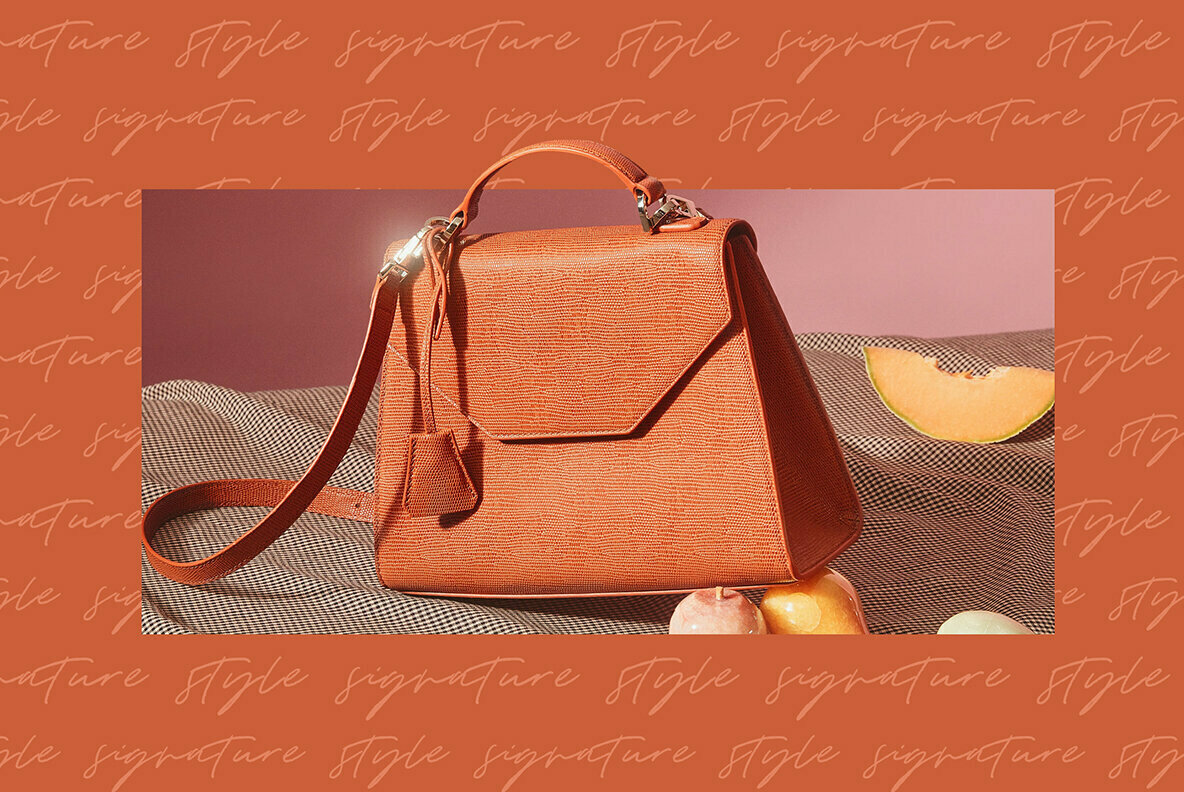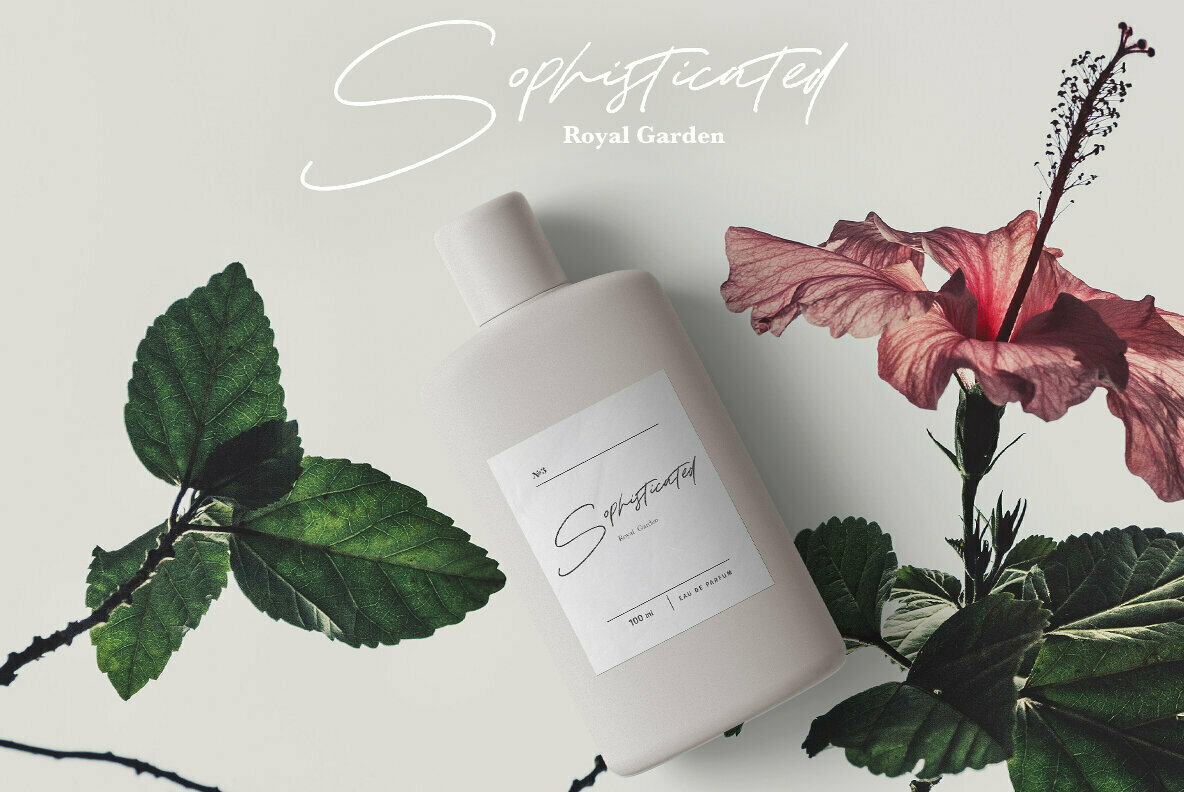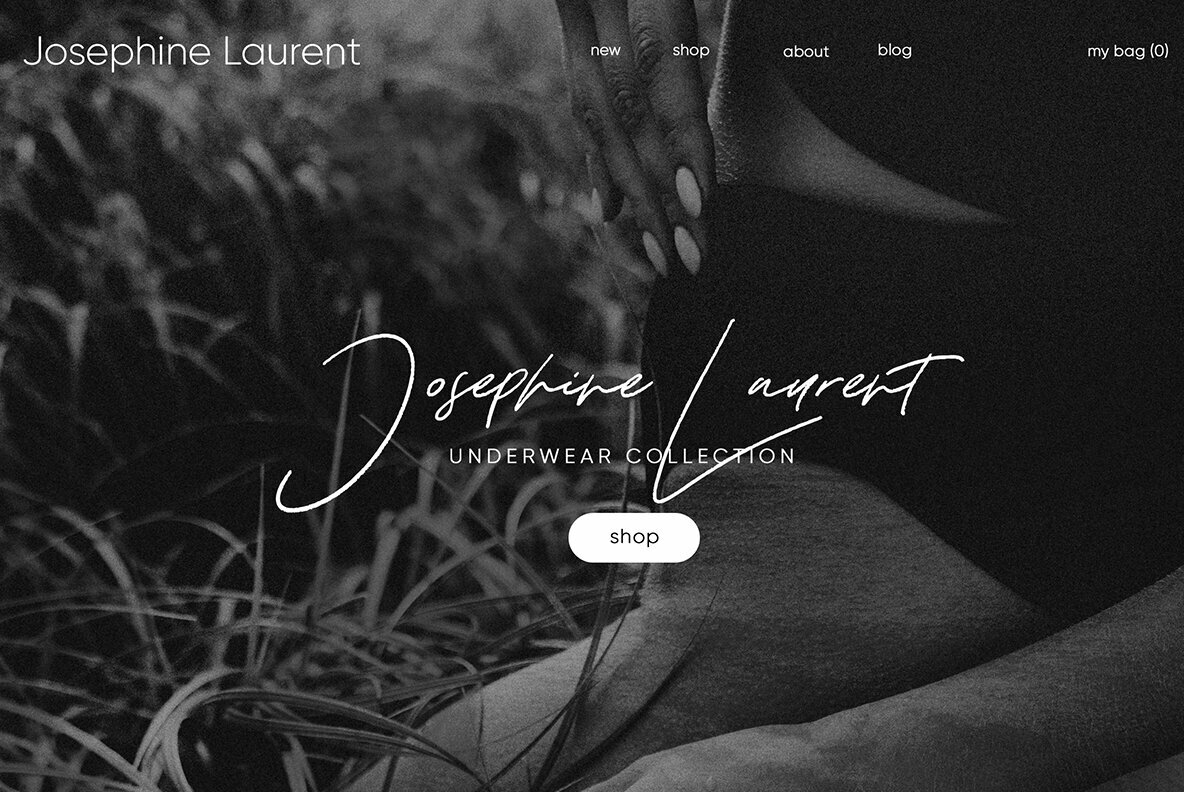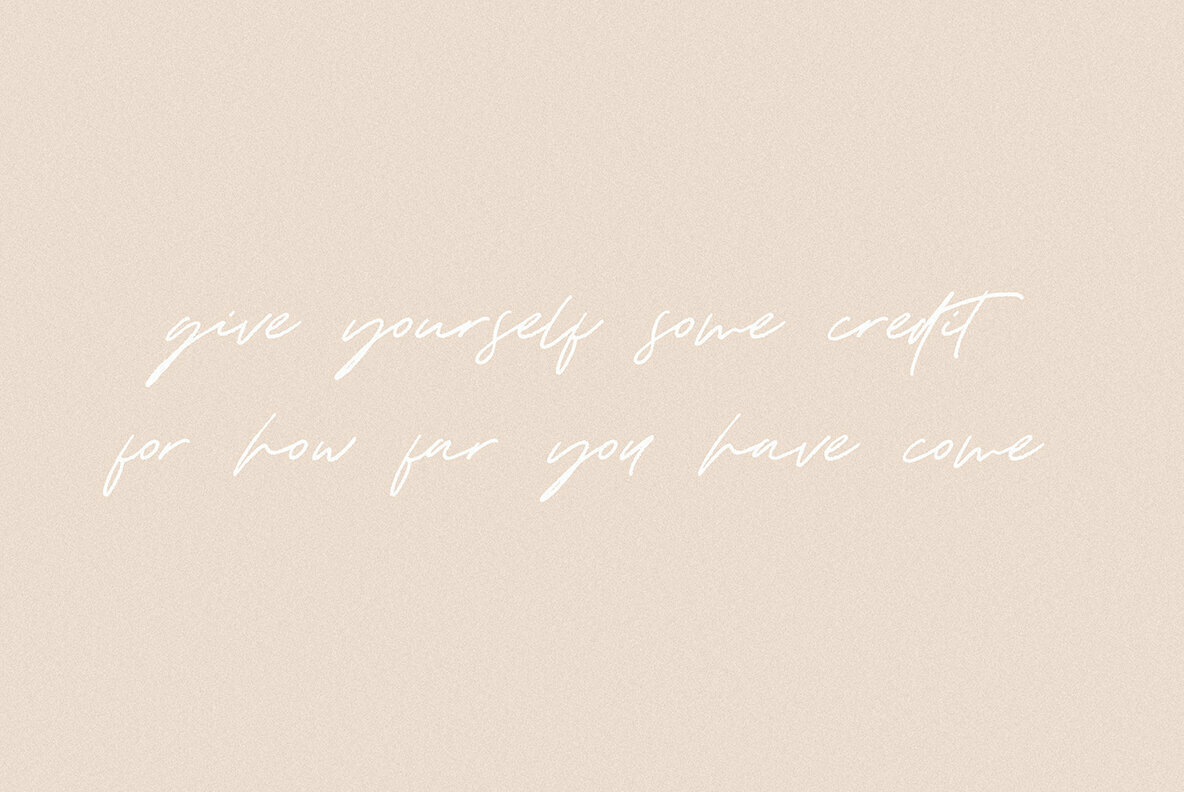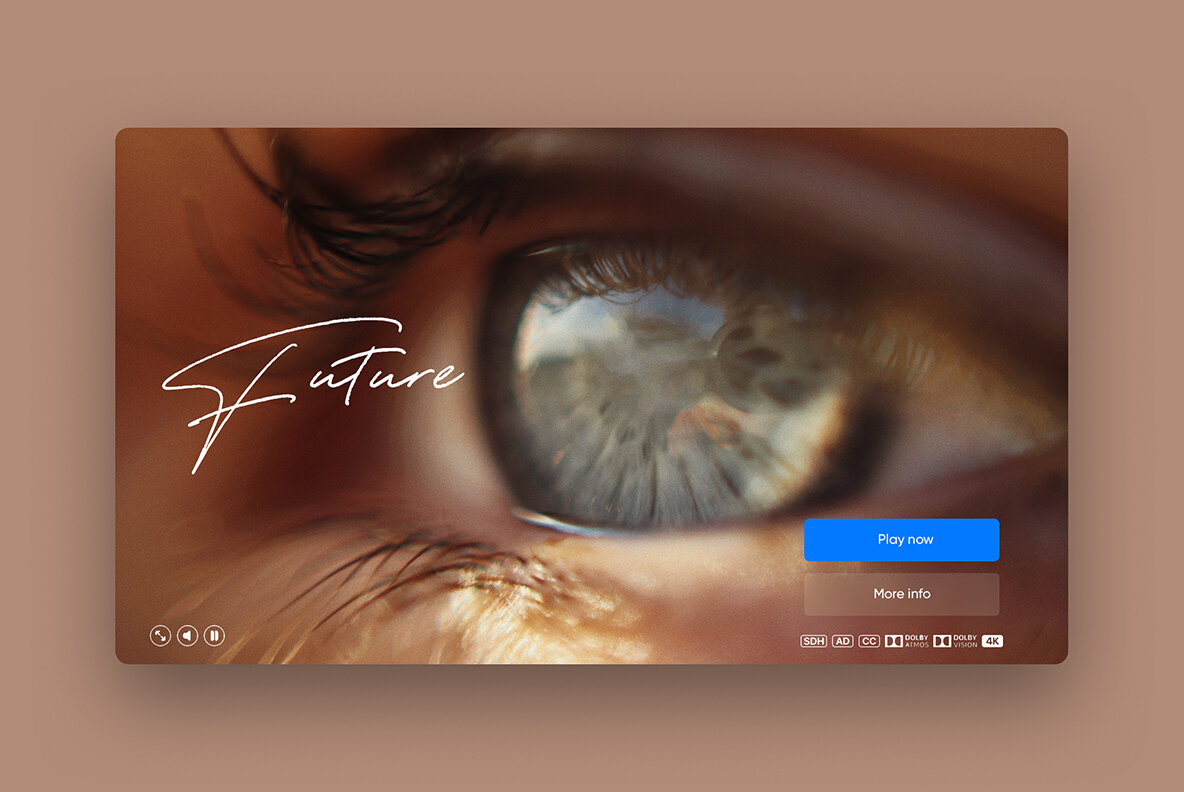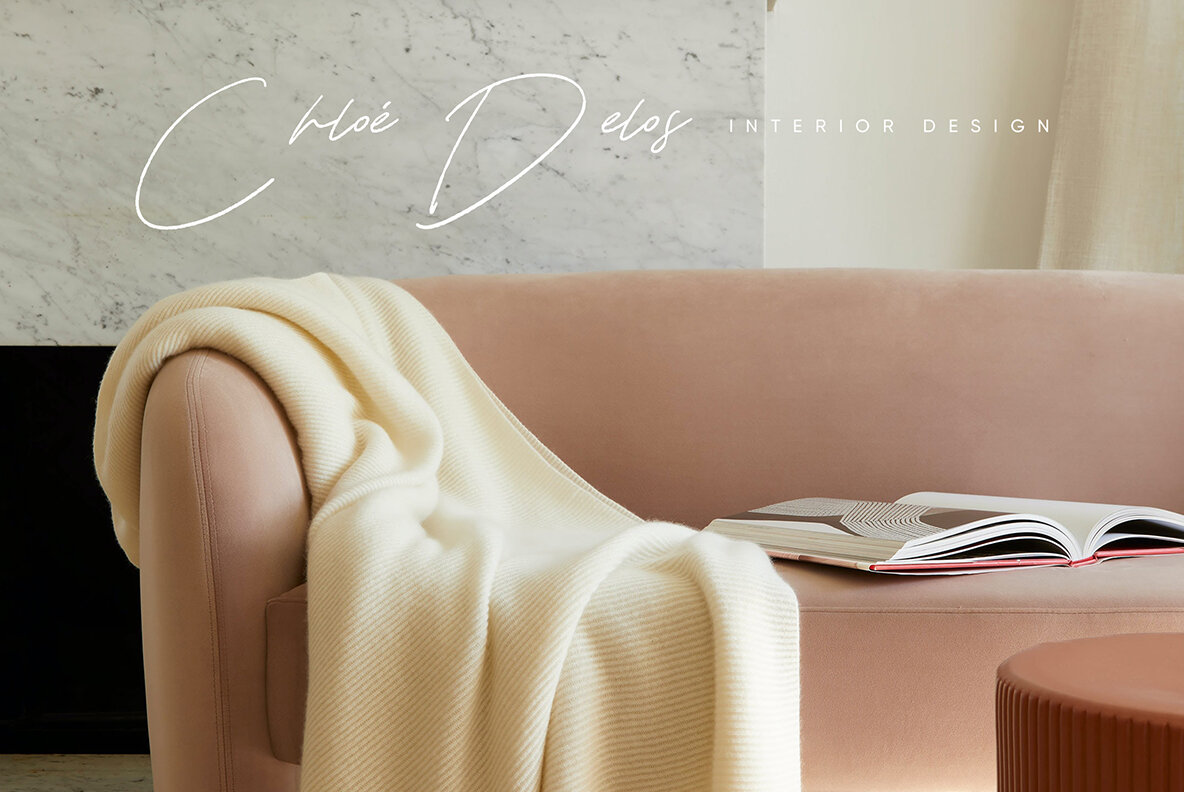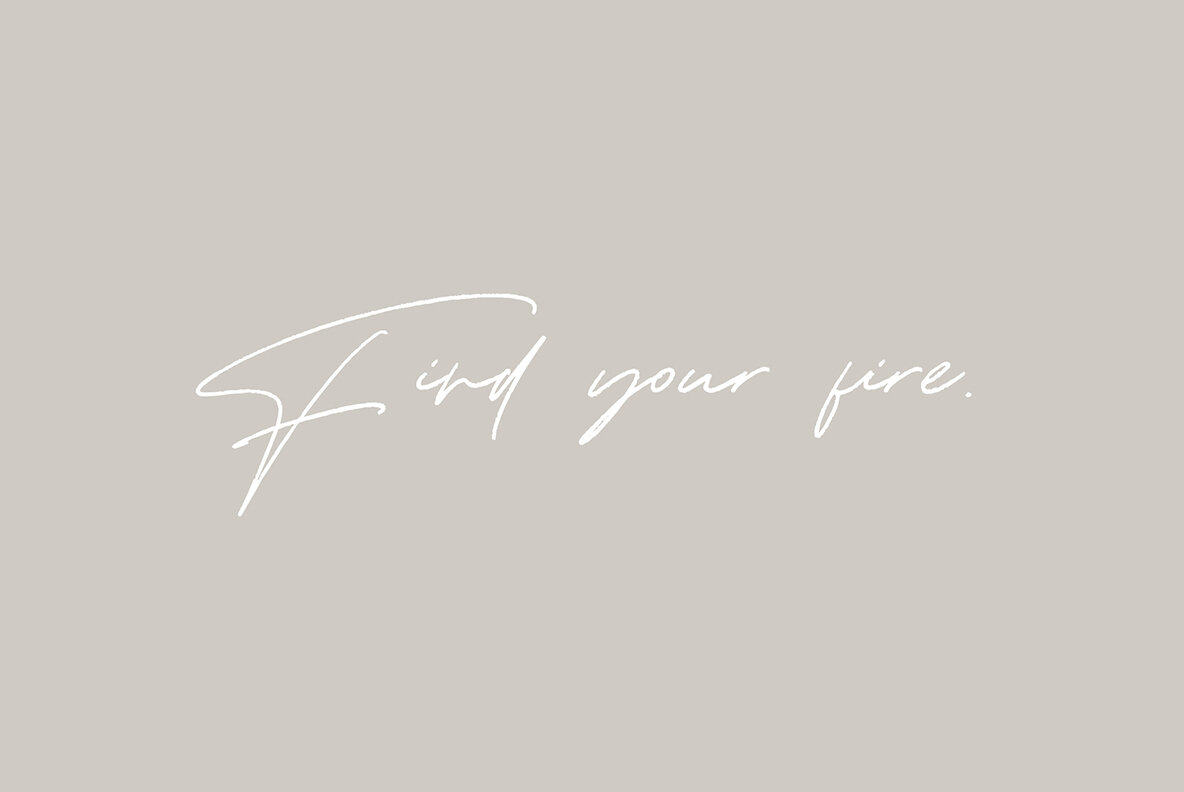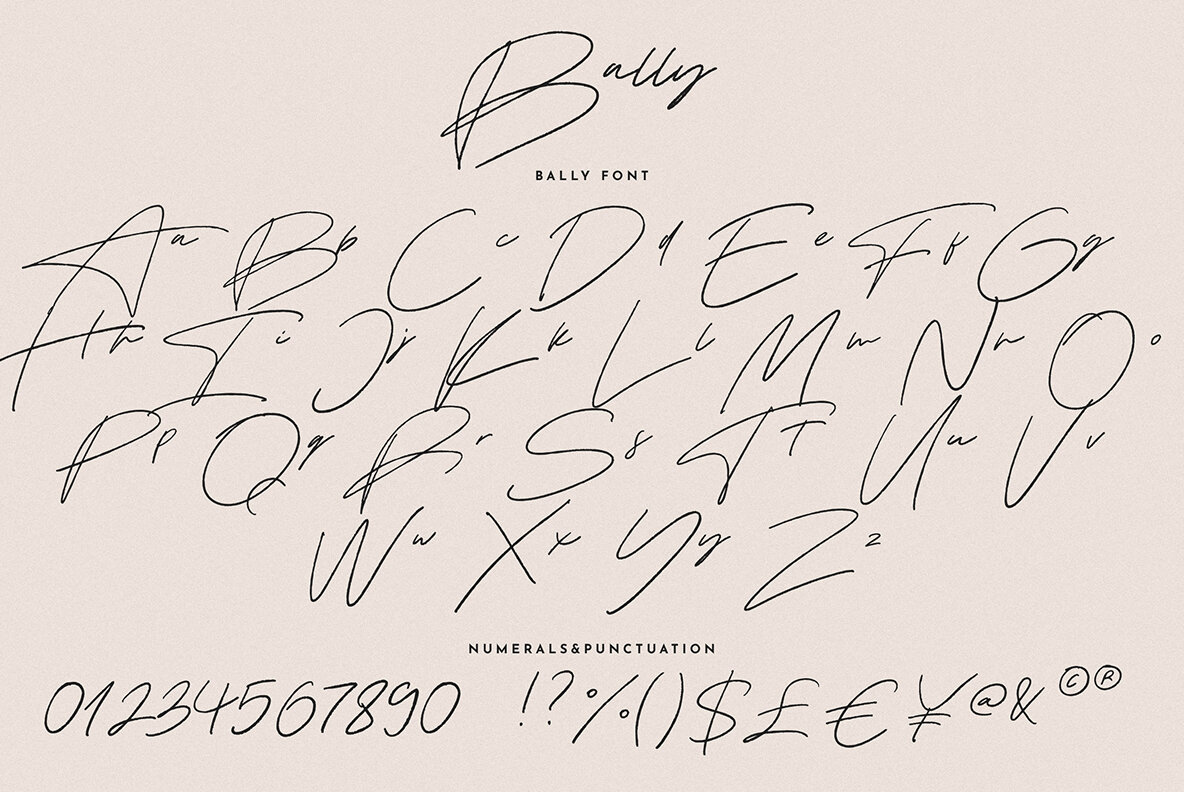
Bally Font
Bally Regular
Bally from studio&story embodies a unique blend of luxury and fashion in a hand-written script design. Its distinctive texture and fluid movement ensure both readability and clarity, making it suitable for use as a signature font or in longer text applications. Inspired by minimalism, Bally adapts seamlessly to any creative project, enhancing both elegance and functionality. Ideal for crafting stunning logos, branding projects, posters, and blog posts, Bally equally excels in social media campaigns, advertising, and web design. This font is designed to match the sophistication and versatility needed in contemporary digital landscapes.Bally: A Luxurious Hand-Written Script Font